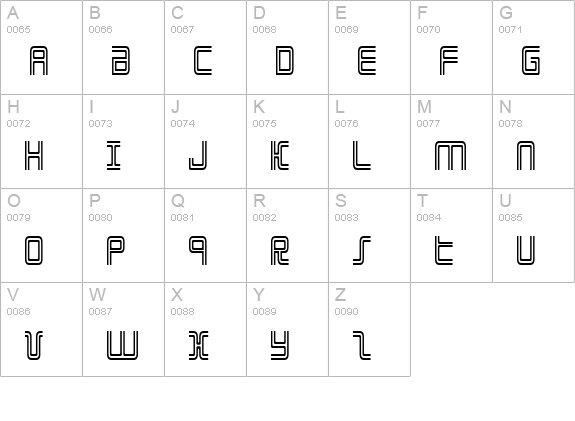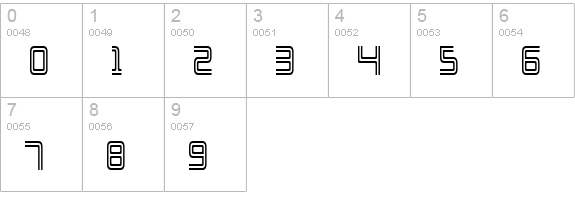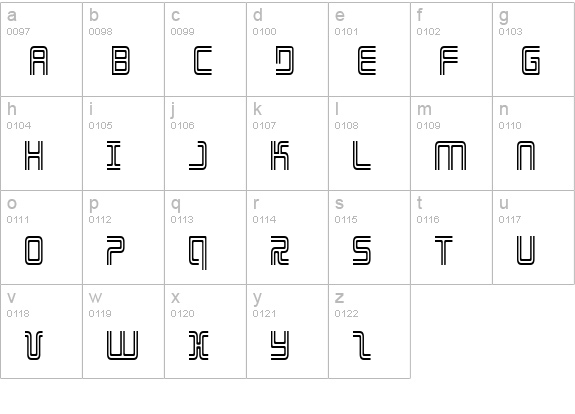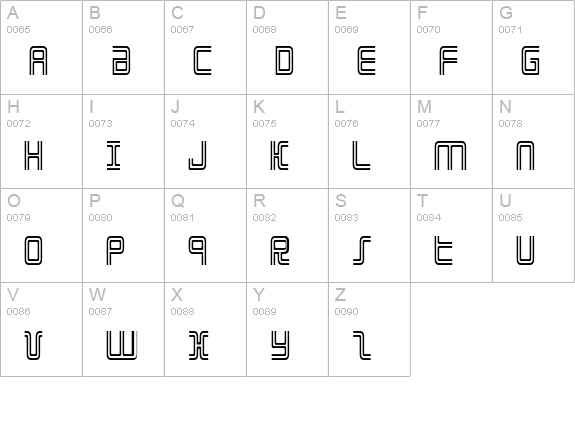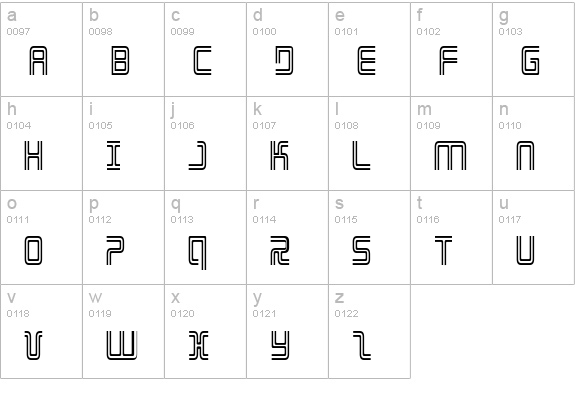
Election Day Condensed is a distinctive, condensed-width variant in the Election typeface family \xE2\x80\x94 well suited to design and typography projects.
Election Day Condensed font is a sleek and modern typeface perfect for adding a touch of sophistication to your design projects. Its condensed style allows for more efficient use of space without sacrificing legibility. The sharp edges and clean lines give it a professional and polished look, making it ideal for headlines, posters, and various branding materials. What's even better is that Election Day Condensed font is available for free download at FontsMarket.com. This means you can elevate your designs without breaking the bank. Don't miss out on this opportunity to enhance your projects with a high-quality font that's both stylish and practical. Download Election Day Condensed font today and take your designs to the next level!